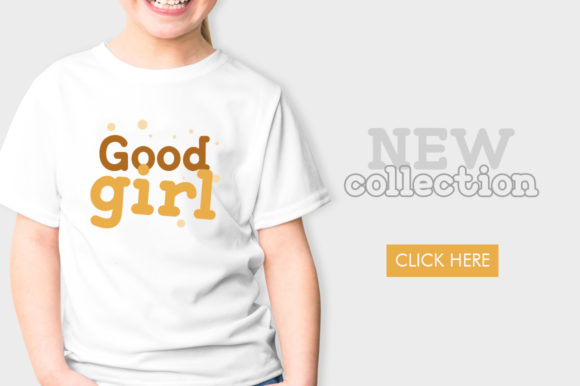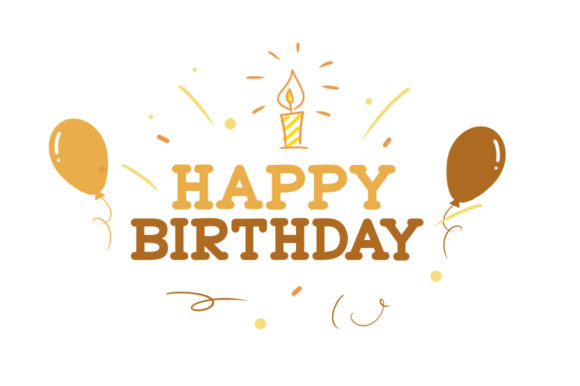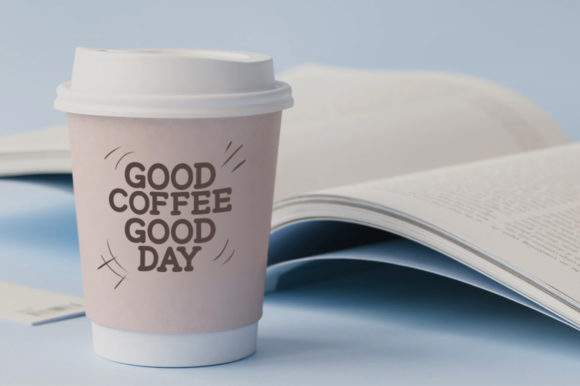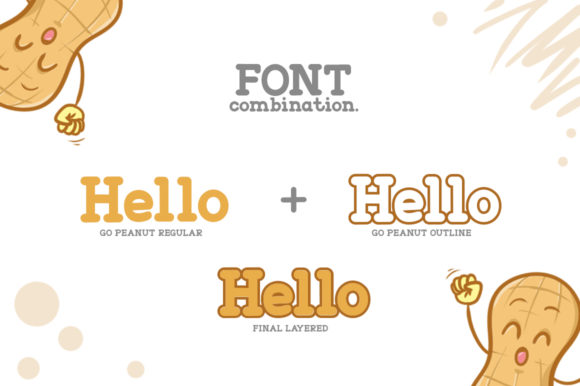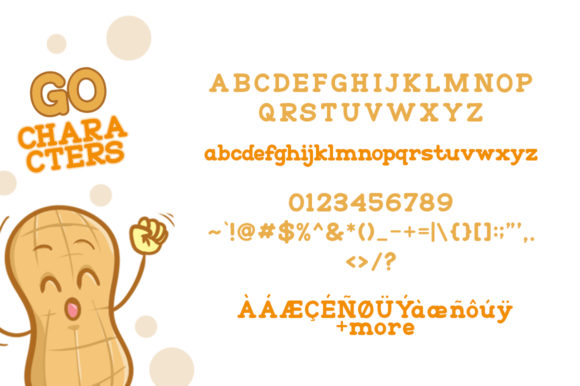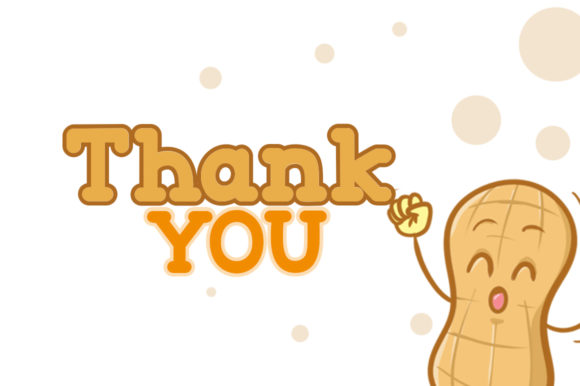
Introducing Go Peanut Font: A Fun Display Typeface for Creative Projects
Are you a designer or crafter looking for a unique and versatile font to elevate your creative projects? Look no further than Go Peanut Font! This fun display typeface is perfect for adding a touch of personality to your designs, with two different styles to choose from: regular and super bold. In this article, we’ll dive into the features and benefits of Go Peanut Font, and explore how it can be used to take your designs to the next level.
A Font that’s Full of Character
The Go Peanut Font is a fun and playful typeface that’s sure to add a dash of personality to any design. With its unique and quirky characters, it’s perfect for creating eye-catching headlines, titles, and logos. The font includes a range of awesome characters in two different styles: regular and super bold. This means you can use it to create a variety of different effects, from subtle and sophisticated to bold and attention-grabbing.
So, what can you use Go Peanut Font for? The possibilities are endless! Here are a few ideas to get you started:
- Name Cards: Add a touch of personality to your business cards or name tags with Go Peanut Font.
- Posters: Create eye-catching posters for events, promotions, or advertising campaigns.
- Logos: Use Go Peanut Font to create a unique and memorable logo for your brand.
- Magazines and Covers: Add a pop of personality to your magazine covers or article titles.
- Large-Scale Artwork: Use Go Peanut Font to create bold and eye-catching artwork for exhibitions, displays, or installations.
Key Features of Go Peanut Font
So, what makes Go Peanut Font so special? Here are a few key features that set it apart:
- Two Different Styles: Choose from regular and super bold styles to add variety to your designs.
- Awesome Characters: The font includes a range of unique and quirky characters to add personality to your designs.
- Fun and Playful: Go Peanut Font is perfect for adding a touch of whimsy and fun to your designs.
- High-Quality: The font is designed to be clear and legible, even at large sizes.
Tips for Using Go Peanut Font
Here are a few tips for getting the most out of Go Peanut Font:
- Experiment with Different Sizes: Try using Go Peanut Font in different sizes to create visual interest and hierarchy.
- Mix and Match: Combine Go Peanut Font with other fonts to create a unique and eye-catching effect.
- Play with Color: Use Go Peanut Font in different colors to add an extra pop of personality to your designs.
In conclusion, Go Peanut Font is a fun and versatile display typeface that’s perfect for designers and crafters looking to add a touch of personality to their creative projects. With its two different styles, awesome characters, and high-quality design, it’s the perfect choice for a wide range of projects, from name cards and posters to logos and large-scale artwork. So why not give Go Peanut Font a try and see how it can elevate your designs?